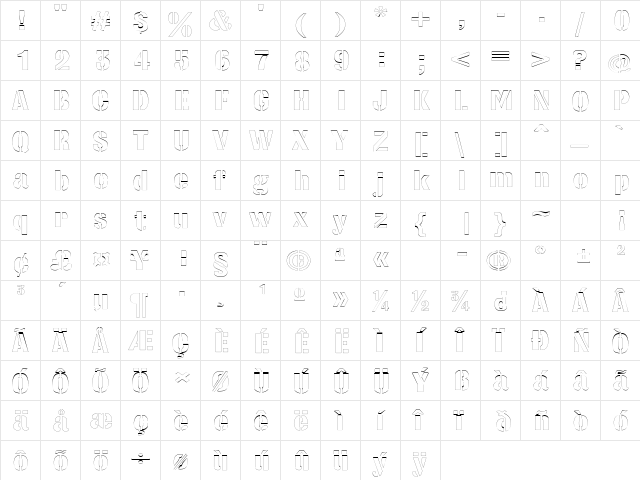
StencilSetExtendedOutline Regular Font Preview
StencilSetExtendedOutline Regular
Design Context for StencilSetExtendedOutline Typeface
StencilSetExtendedOutline has the rough pragmatism of spray-painted stencil signage, adding a raw, street-level authenticity to designs.
Ideal for industrial branding, streetwear, military-adjacent aesthetics, and urban signage projects.
Pro Tip: Pair StencilSetExtendedOutline with raw, utilitarian design elements — exposed concrete textures, flat colour, and minimal ornamentation suit it well.